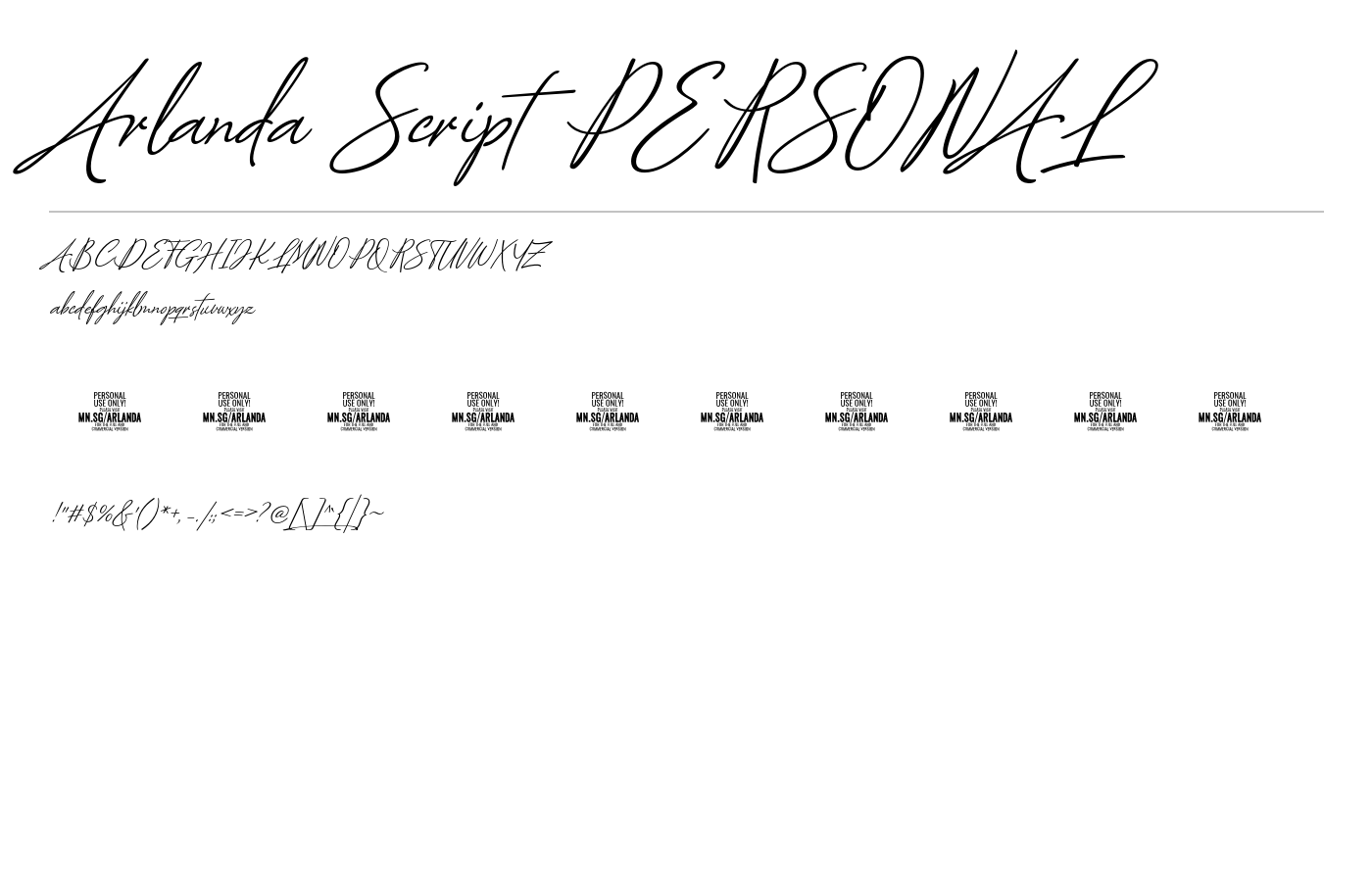
Arlanda Script PERSONAL is an elegant, flowing script font with a delicate and airy feel, characterized by its thin strokes and natural, handwritten style. Its slender letterforms and high contrast give it a refined, personal touch that works beautifully for invitations, branding, and stylish editorial headlines. This font adds a sophisticated, intimate vibe to any project requiring a graceful and modern handwritten appearance.
Arlanda Script PERSONAL Font
About Arlanda Script PERSONAL Font